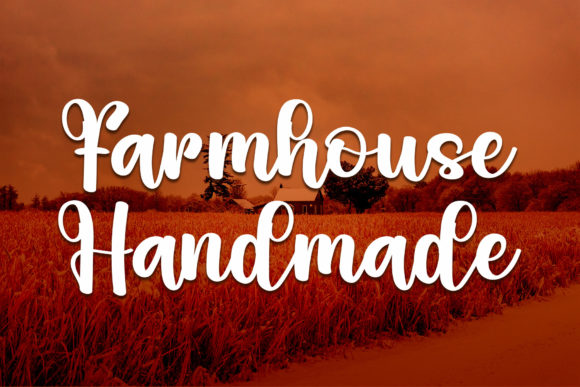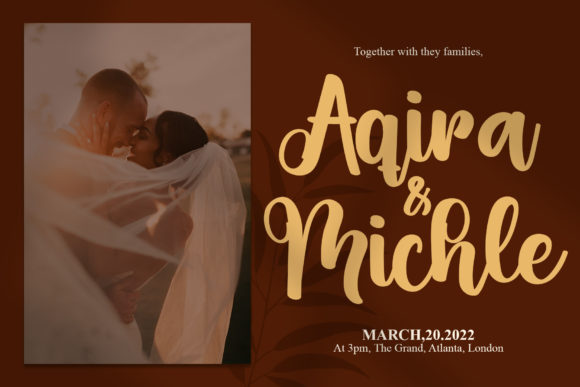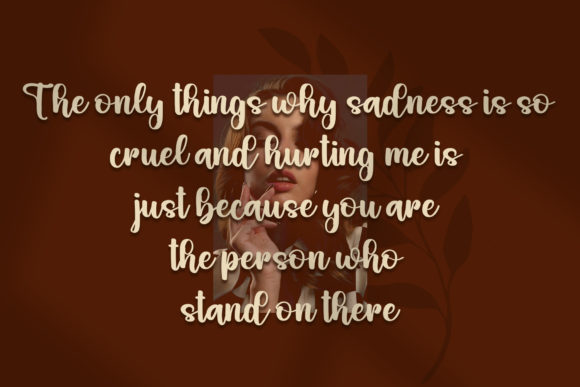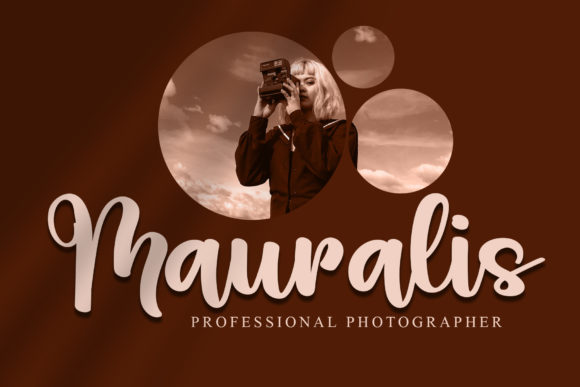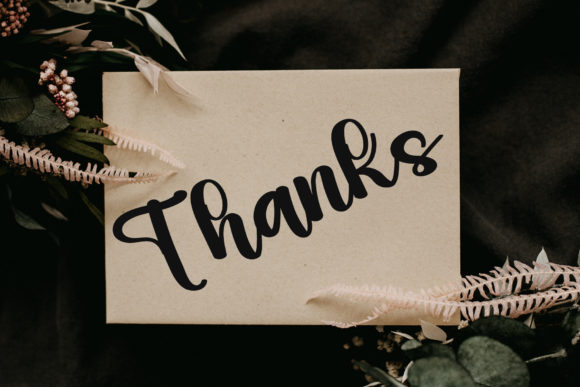
Family Time Font
About Family Time Font
“Family Time” is a font that exudes sweetness and delicacy through its handwritten style. With a dainty and joyful aura, this font proves to be perfect for various projects, including crafting wedding invitations, cards, or any design seeking a romantic and personalized touch.
The charm of “Family Time” lies in its ability to convey a sense of tenderness and sentimentality. Its delicate strokes and graceful curves add a touch of intimacy, making it an ideal choice for projects that evoke emotions or personal connections.
Whether used for wedding invitations that require a romantic touch, heartfelt cards that express emotions, or any design endeavor that aims to create a sense of connection, “Family Time” becomes a valuable tool. Its handwritten essence can resonate deeply with viewers, enhancing the emotional impact of your creations.
Incorporating “Family Time” into your design projects means embracing its sweet and delicate attributes. By harnessing its unique charm, you’re infusing your creations with a sense of warmth and personalization. This font becomes a versatile instrument for enhancing the visual allure of your work and evoking genuine emotions from your audience.